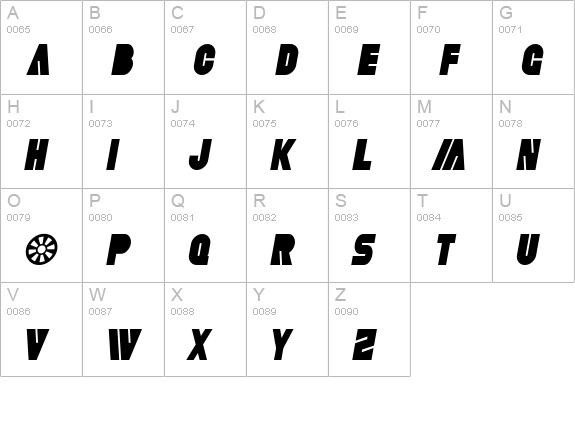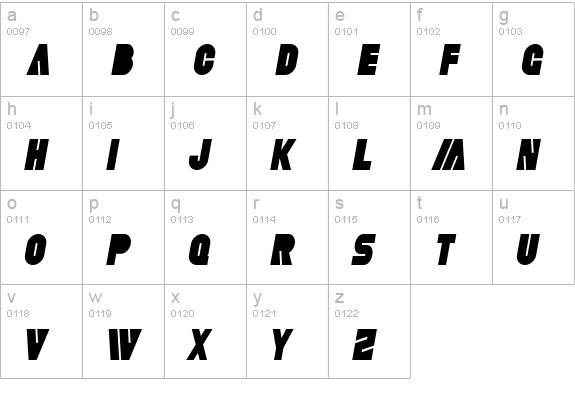
SF Fortune Wheel Condensed Italic Font Details
SF Fortune Wheel Condensed Italic is a distinctive, condensed-width, italic variant in the SF typeface family \xE2\x80\x94 well suited to design and typography projects.
SF Fortune Wheel Condensed Italic is a sleek and sophisticated font that exudes a sense of elegance and modernity. Its condensed and italic design adds a touch of uniqueness and flair to any project, making it perfect for creative endeavors that require a sleek and stylish appearance. This font is meticulously crafted with attention to detail, resulting in smooth and clean lines that are pleasing to the eye. The condensed spacing allows for more text to be fitted into a limited space without compromising legibility, making it a great choice for designs that require maximum impact in a minimalistic format. SF Fortune Wheel Condensed Italic is not only visually appealing but also highly versatile. It is suitable for a wide range of design projects, such as branding, packaging, advertising, and editorial design. Its italicized style adds a sense of dynamism and movement, making it particularly suitable for projects that require a touch of energy and excitement. One of the best features of SF Fortune Wheel Condensed Italic is that it is available for free download at FontsMarket.com. This means that you can easily access and utilize this font in your projects without any cost. Whether you are a professional designer or a hobbyist, this font offers a valuable resource that can enhance your creative work without breaking the bank. So why wait? Download SF Fortune Wheel Condensed Italic today and elevate your designs to new heights. With its sleek and stylish appearance, versatility, and the added bonus of being freely available, this font is a must-have for anyone looking to make a lasting impression.